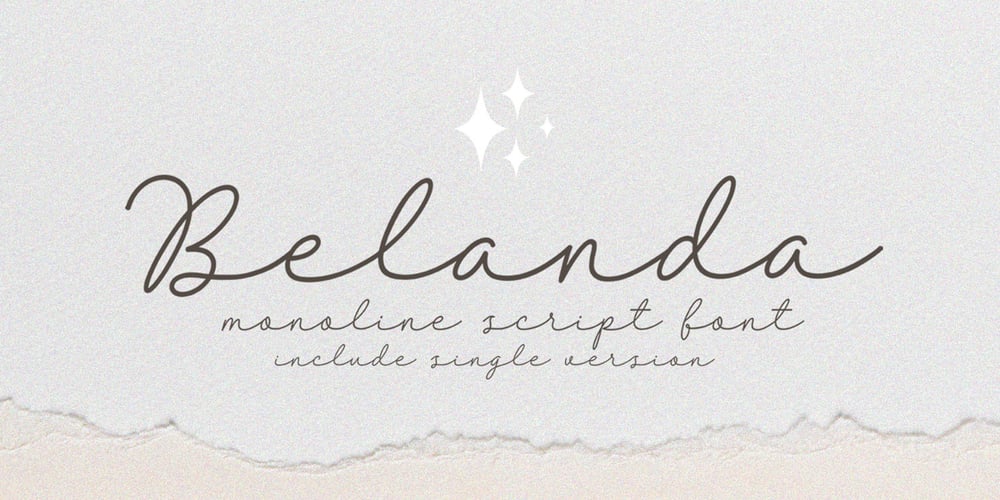
Belanda Font Family was designed by Rangga Subekti and published by Subectype. Belanda contains 1 styles and family package options. Introducing the new “Belanda” font, a monoline script font. For those of you who are needing a touch of clean monoline handwritten Font, chic and modernity for your designs, this font was created for you!If there’s anything else you are unsure of feel free to pop me a message ๐ That’s it! Have fun using Belanda Fonts!